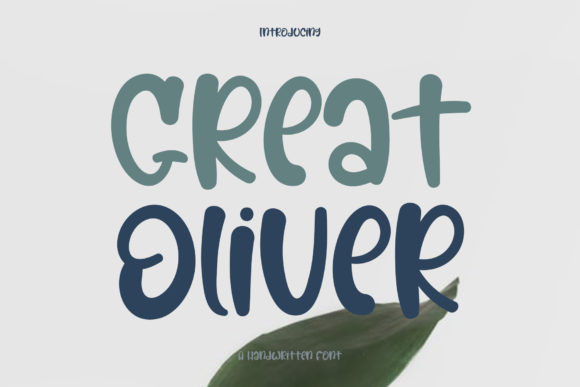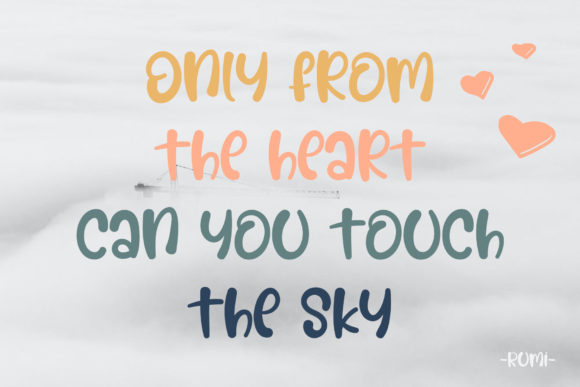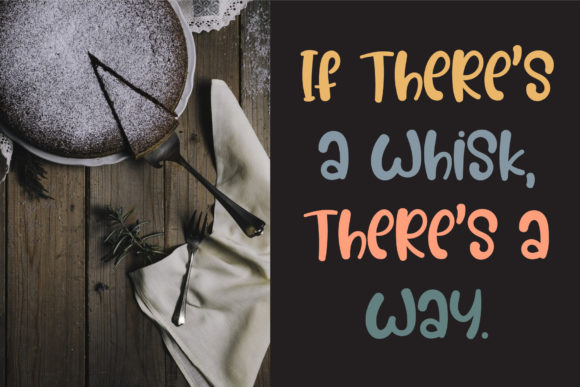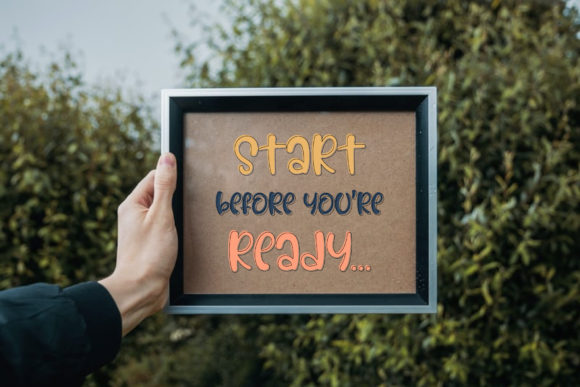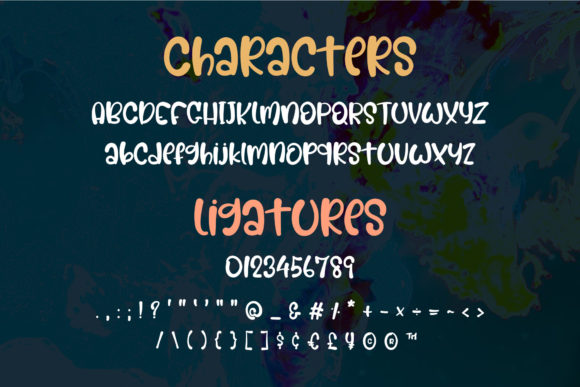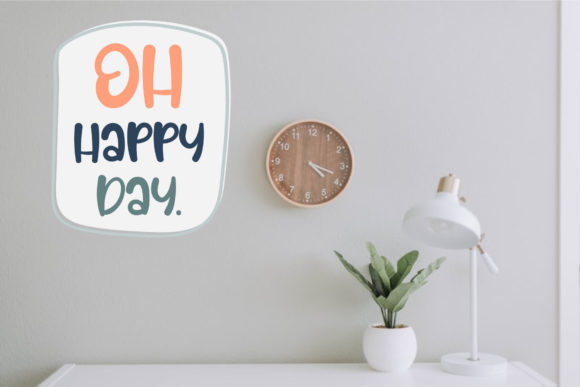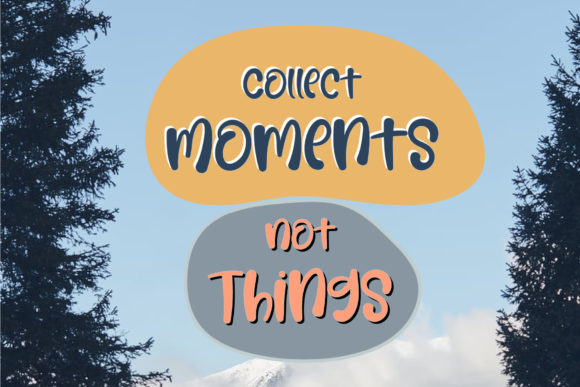
Great Oliver Font
About Great Oliver Font
Great Oliver is a quirky and fun handwritten font. It embodies playfulness and authenticity and is the perfect choice for any children activity or school project